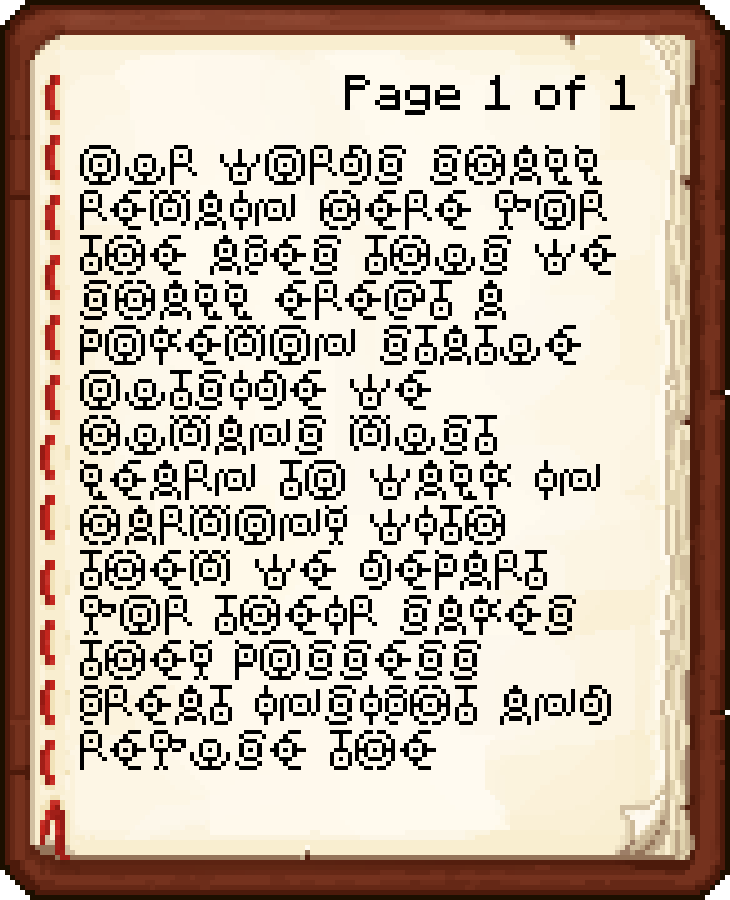
Unown Font
Unown Font - Mysterious Font for Minecraft
Add a mystical atmosphere to your game with this mod that introduces a unique font inspired by the enigmatic Pokemon Unown. This stylish font is perfect for creating mysterious vibes and pairs excellently with mods like Pixelmon and Cobblemon.
Application Possibilities
The font can be used anywhere that supports JSON text format: item names, tooltips, books, signs, and much more. This opens up wide possibilities for customizing your gaming experience.
Complete Character Set
The font includes all 26 letters of the Latin alphabet, plus exclamation and question marks. Both uppercase and lowercase letters are supported, ensuring full functionality for any text tasks.
Font Overview
Unique Banner Patterns
Starting from Minecraft version 1.19.2, the wandering trader sometimes offers special banner patterns with Unown symbols. These patterns can be used at the loom to create exclusive banners with mystical symbols.
Banner Preview